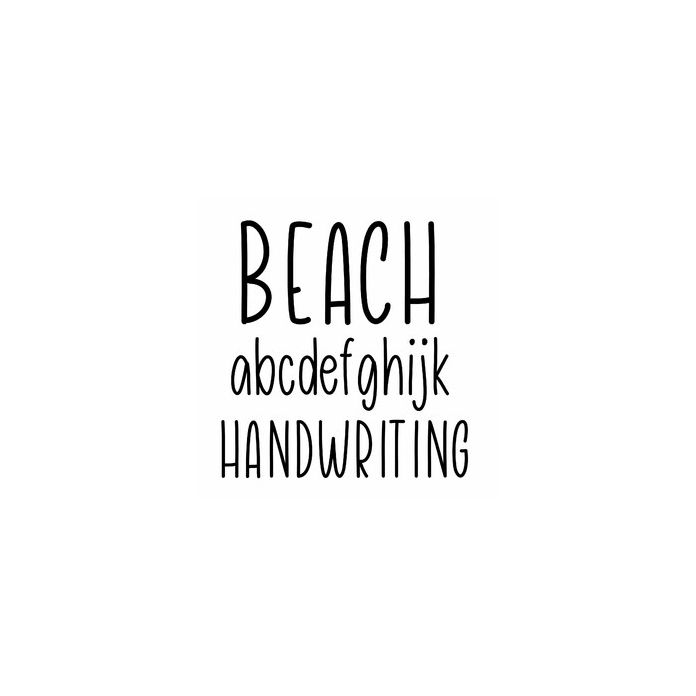
Beach handwriting font
Beach is a tall sans serif marker handwriting print font fun for cards, crafts, birthday, monograms, signs, planners, and personalization projects.